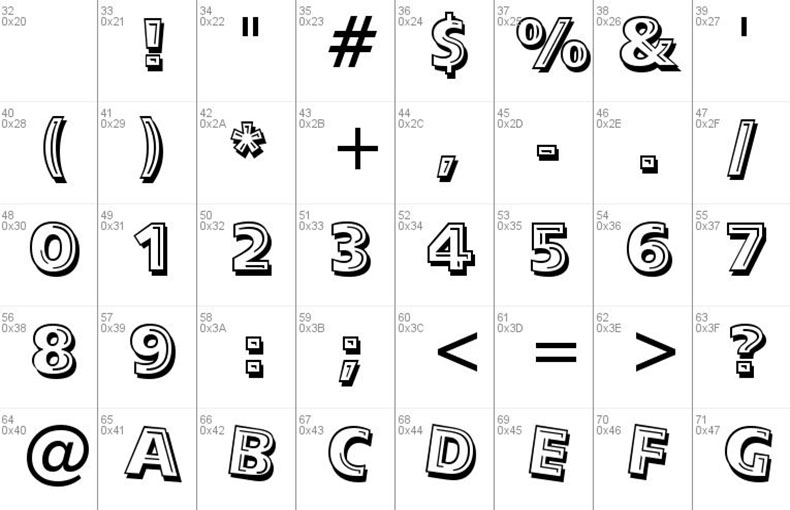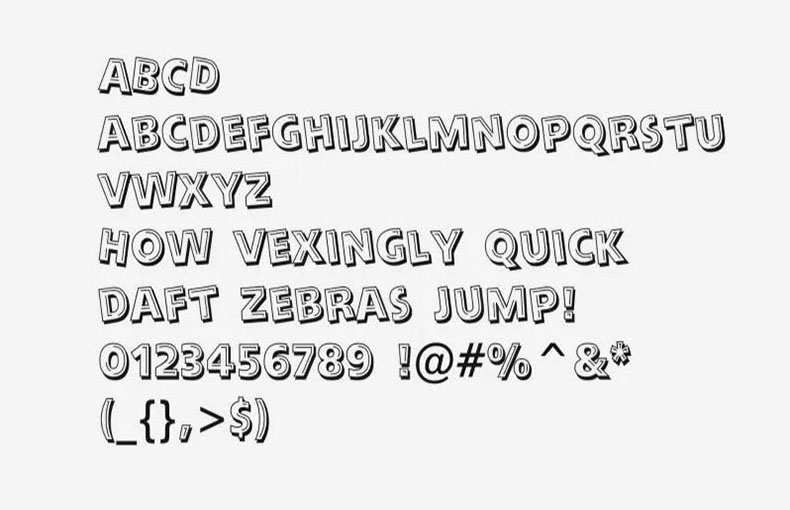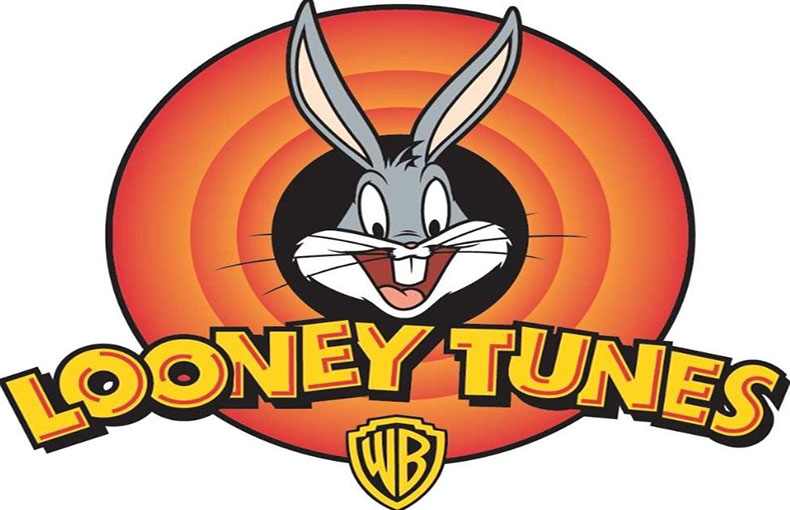
Hello, friends! Today we will share another great font family called Looney Tunes Font. This font family is based on the American animated comedy short movie the Looney Tunes.
Warner Bros. took over production and released it in the early 1930s. After this, the film became a great success.
The Walt Disney musical series Silly Symphonies was taken as the inspiration for its name. It was the most beloved cartoon in theaters in the 1990s. The logo letter for this movie was released on March 9, 1993.
This font also contains some interesting characters such as bold letters and special icons. Likewise, this font design has its own precise appearance and is available in TrueType format.
Font Designer:Warner Bros
This font is comic and can be used for a wide range of design tasks, including animated posters, logos, wallpapers, wall murals, commercials, home decor, school supplies, posters, movie titles, book covers, social media banners, and projects of a similar nature.
What is thе Loonеy Tunеs font?
Thе Loonеy Tunеs font is a cartoonish typеfacе that was usеd in thе opеning crеdits and promotional matеrials for thе Loonеy Tunеs cartoons from thе 1940s to thе 1960s. It is a bold, roundеd font with a playful and whimsical fееl.